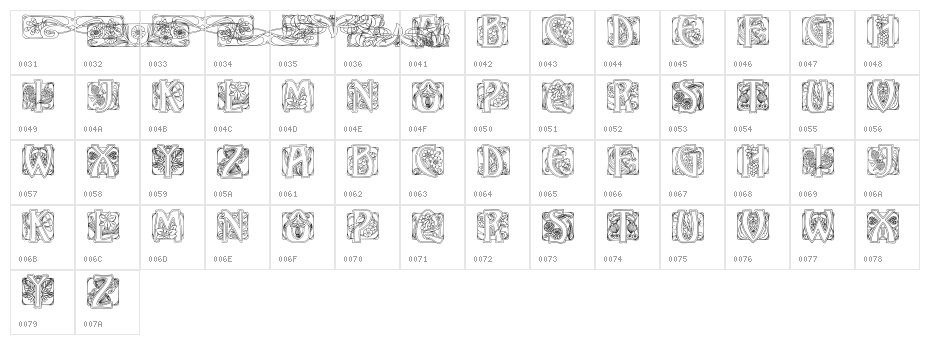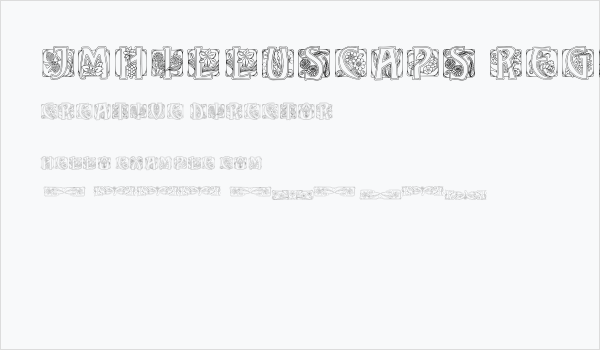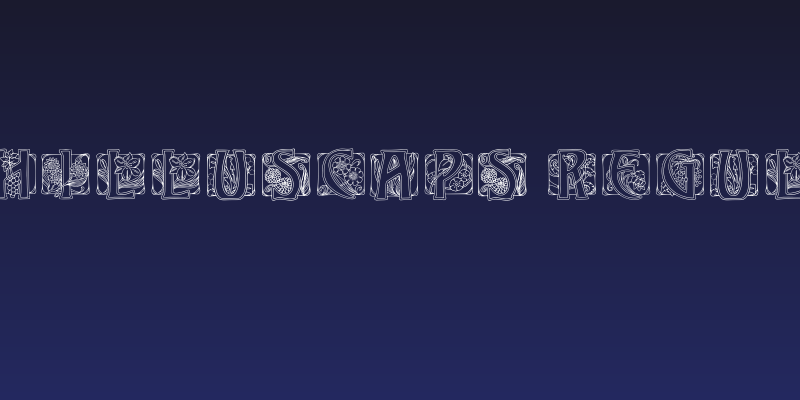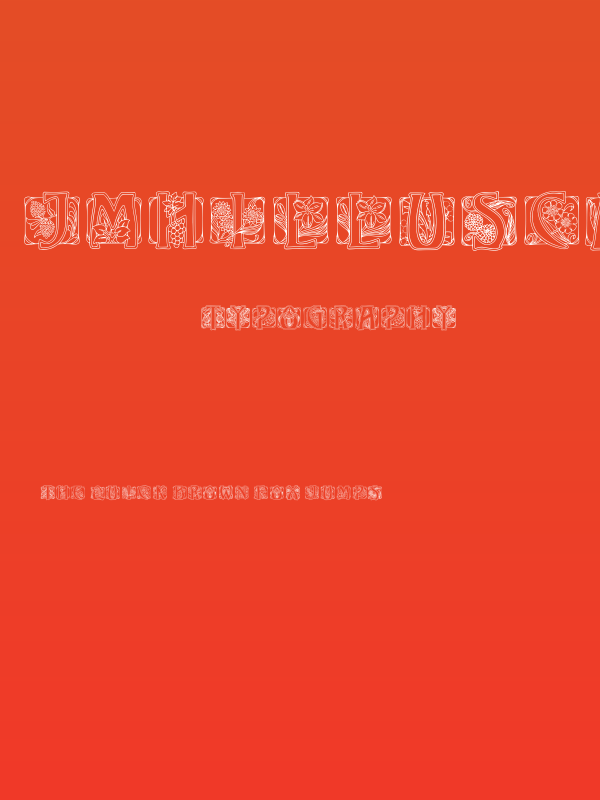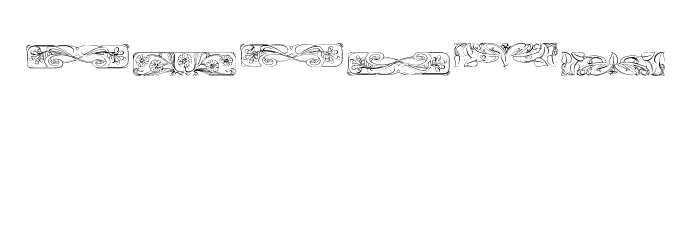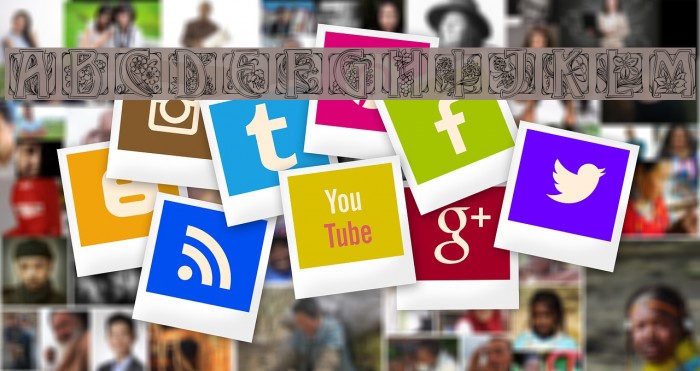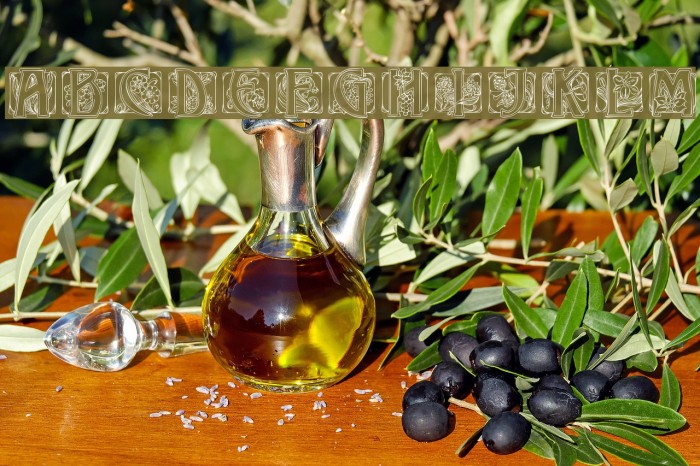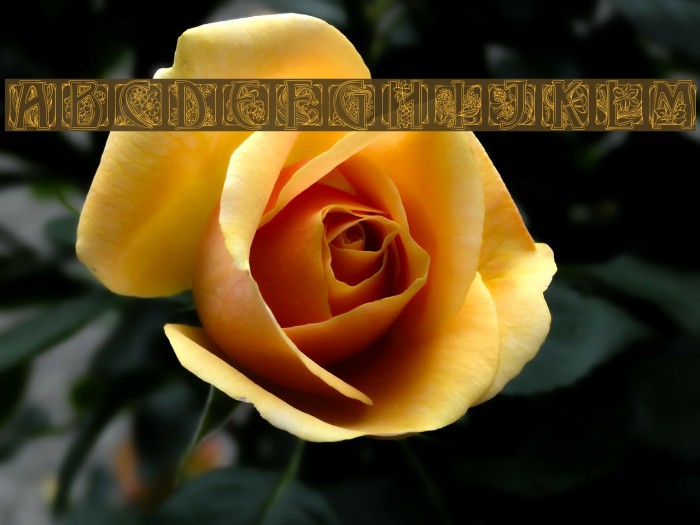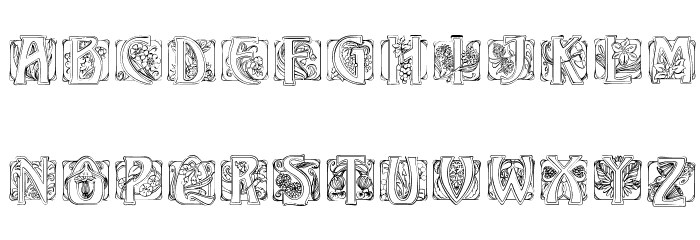
JMHIllusCaps-Regular Font
JMHIllusCaps-Regular Description
This font is a highly decorative and ornate typeface, featuring intricate floral and vine-like embellishments within each character. The letters are bold and have a strong presence, making them ideal for attention-grabbing designs. The detailed illustrations within the characters give it a vintage and artistic feel, reminiscent of illuminated manuscripts or classic storybook titles. Each letter is uniquely designed with its own pattern, adding a layer of complexity and elegance. This font is perfect for projects that require a touch of sophistication and historical charm.
| Proposed Projects | Ideal for wedding invitations, vintage-themed posters, book covers, and artistic branding projects. |